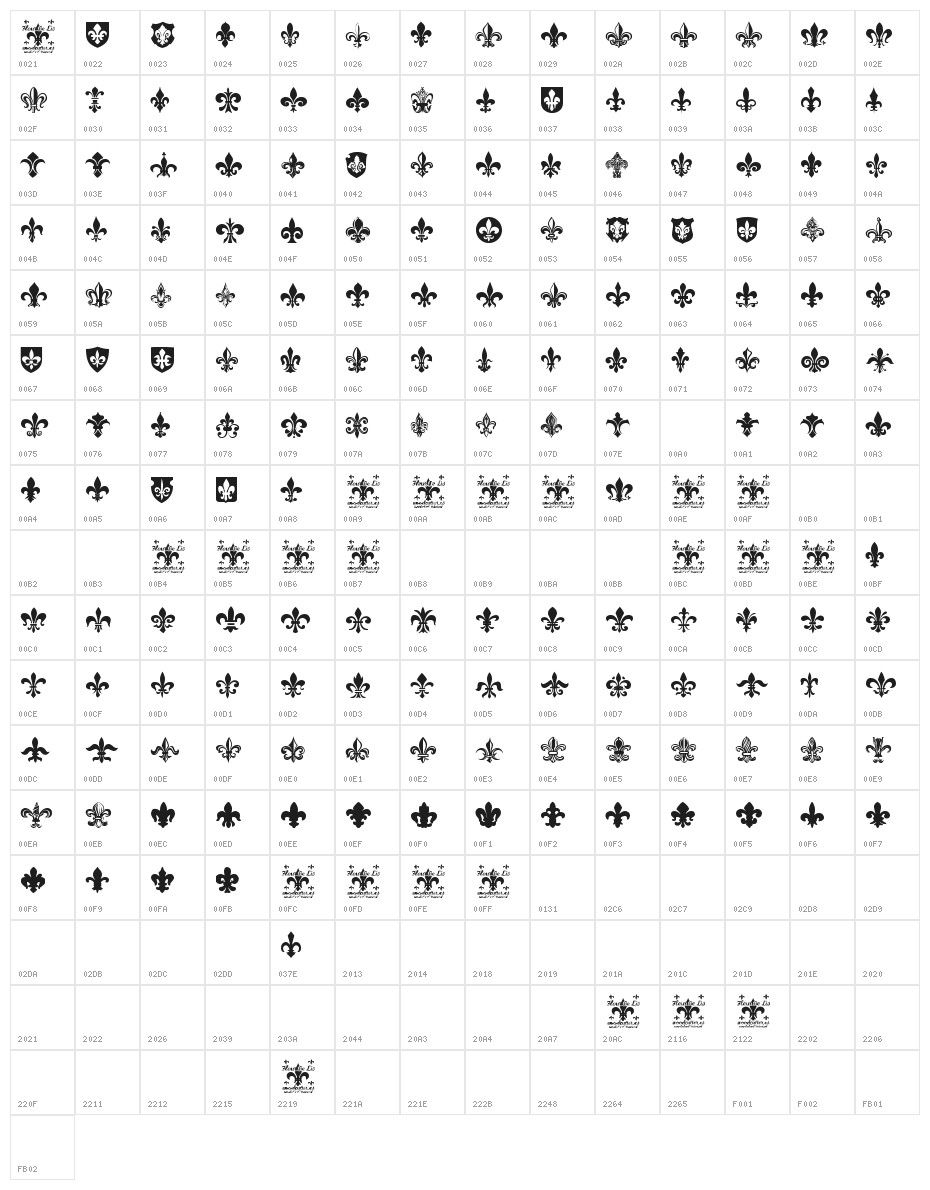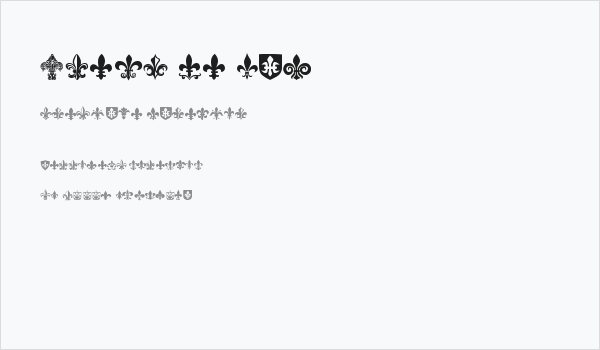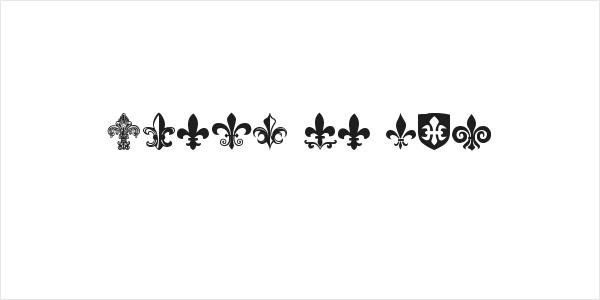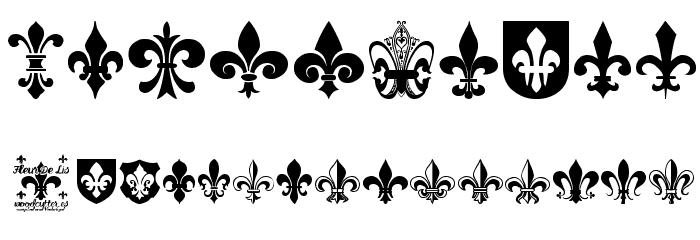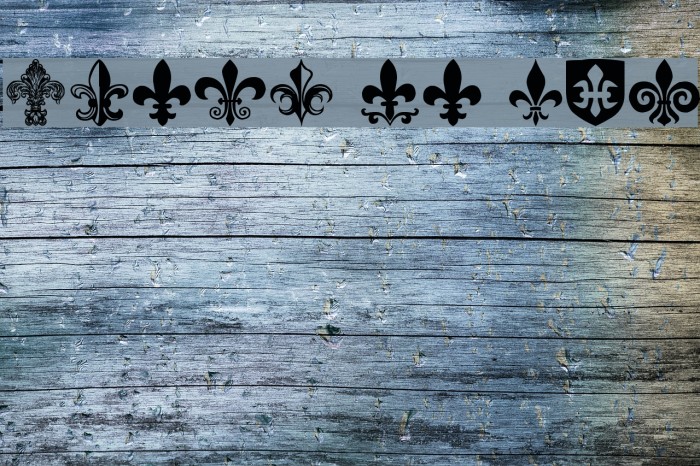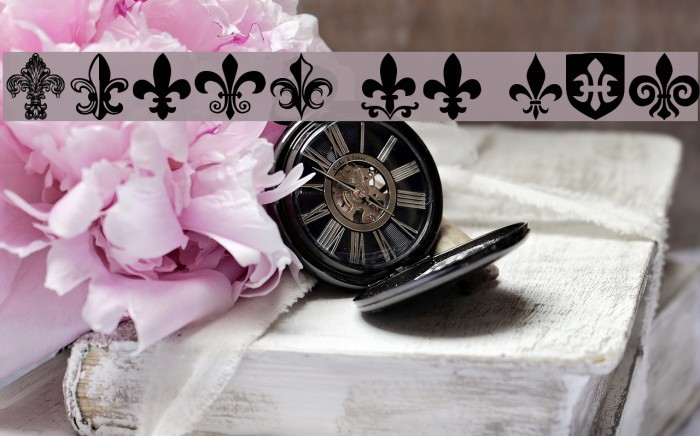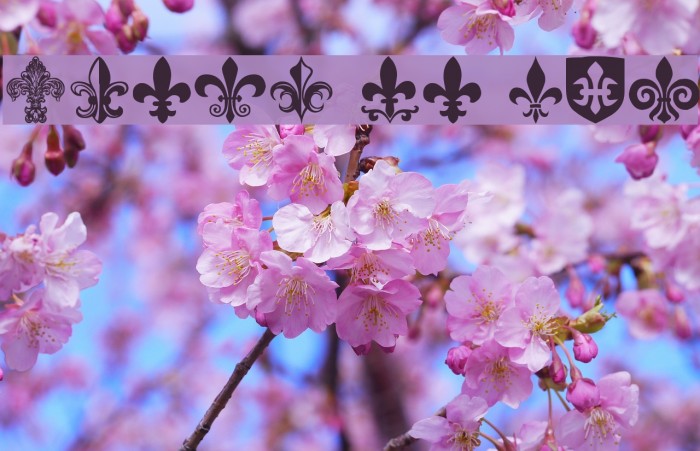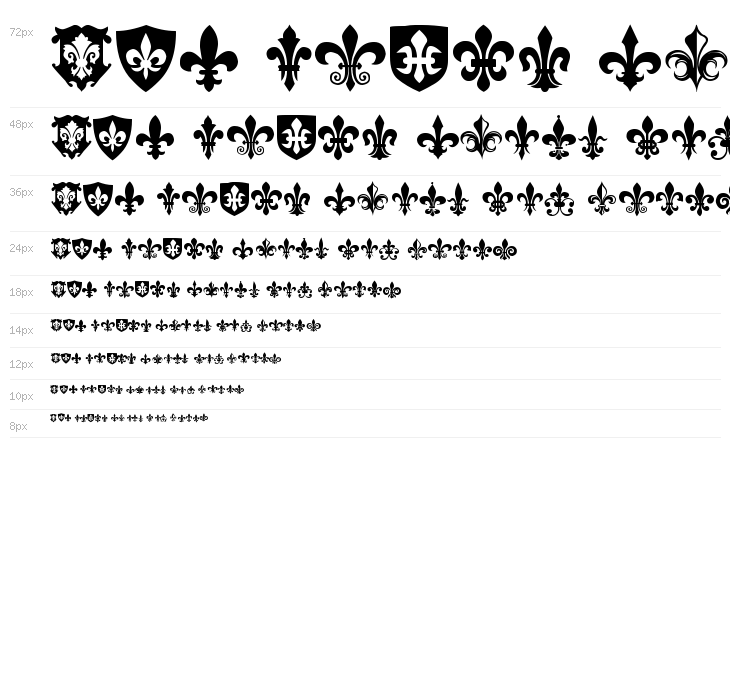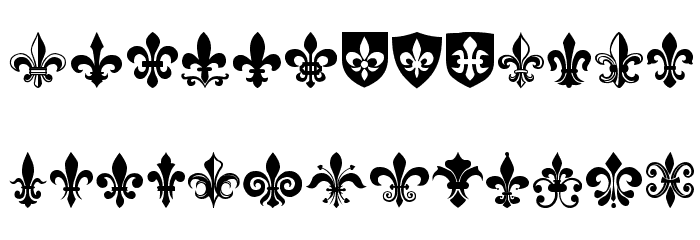
Fleur de Lis Font
Fleur de Lis Description
A decorative dingbat font featuring a wide variety of fleur-de-lis symbols, some enclosed in shields or circles, with intricate and bold designs in both solid and outlined styles.
| Overall Style | Decorative, Heraldic, Classic |
| Use Case | Logos, Decorative elements, Borders, Themed graphics |
| Proposed Projects | Heraldic designs, invitations, certificates, branding, decorative borders, and themed event materials. |